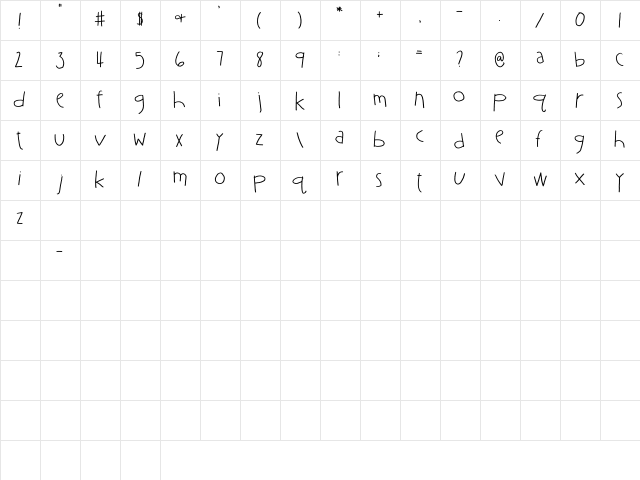
2Peas Fairy Princess 2Peas Fairy Princess
Design Context for 2Peas Fairy Princess Typeface
2Peas Fairy Princess is a composed and adaptable typeface that performs quietly and consistently across a wide range of design contexts.